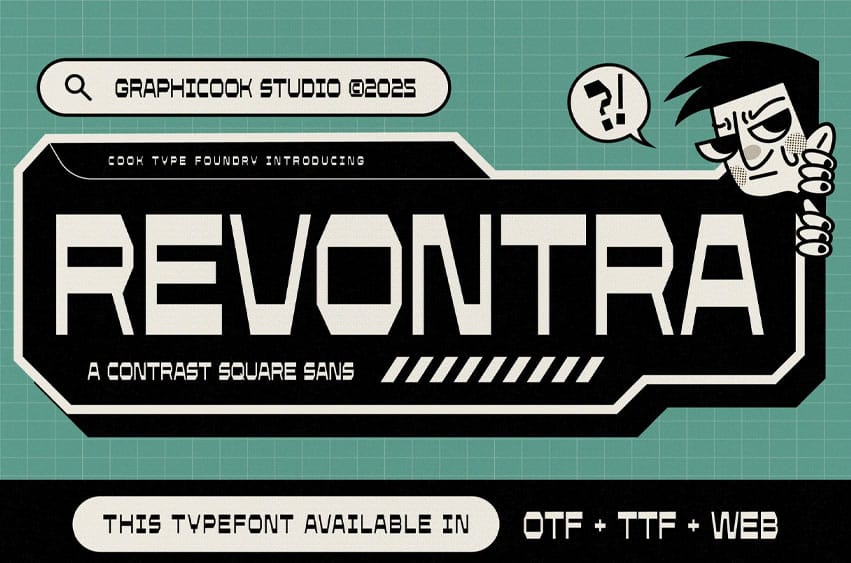
Revontra Font is an experimental font featuring bold, distinctive letterforms that convey a mathematical and futuristic vibe. Perfect for cyberpunk or futuristic design projects
Revontra is perfect for headlines, logotypes, magazines, packaging, quotes, movies, games, cover albums, book covers, and flyers, It’s a perfect solution for creating eye-catching designs that stand out in any context.